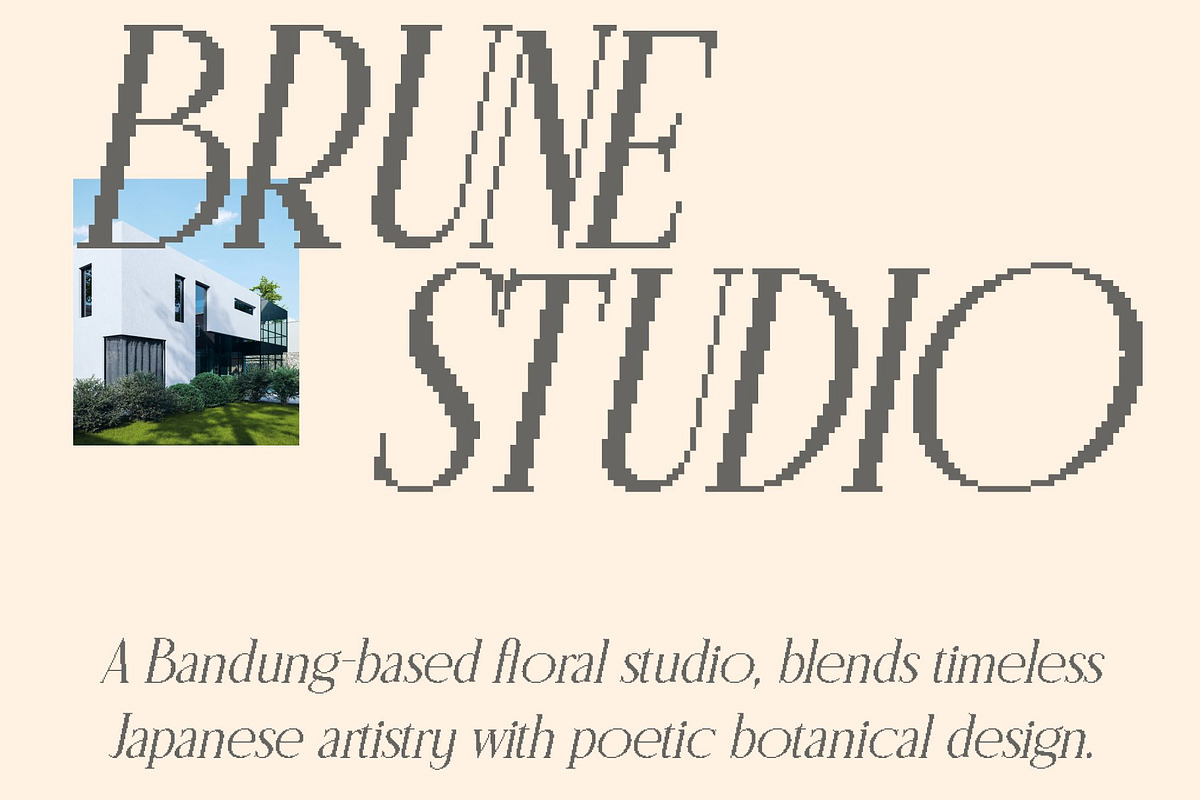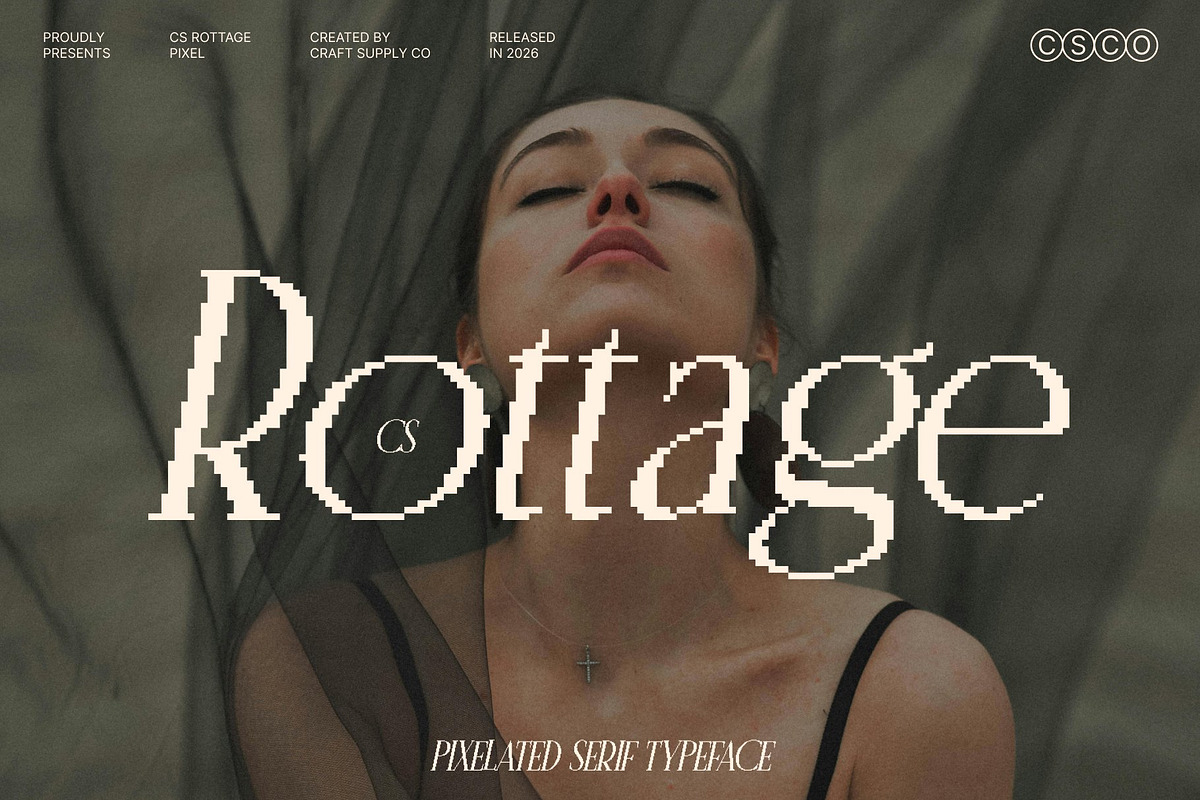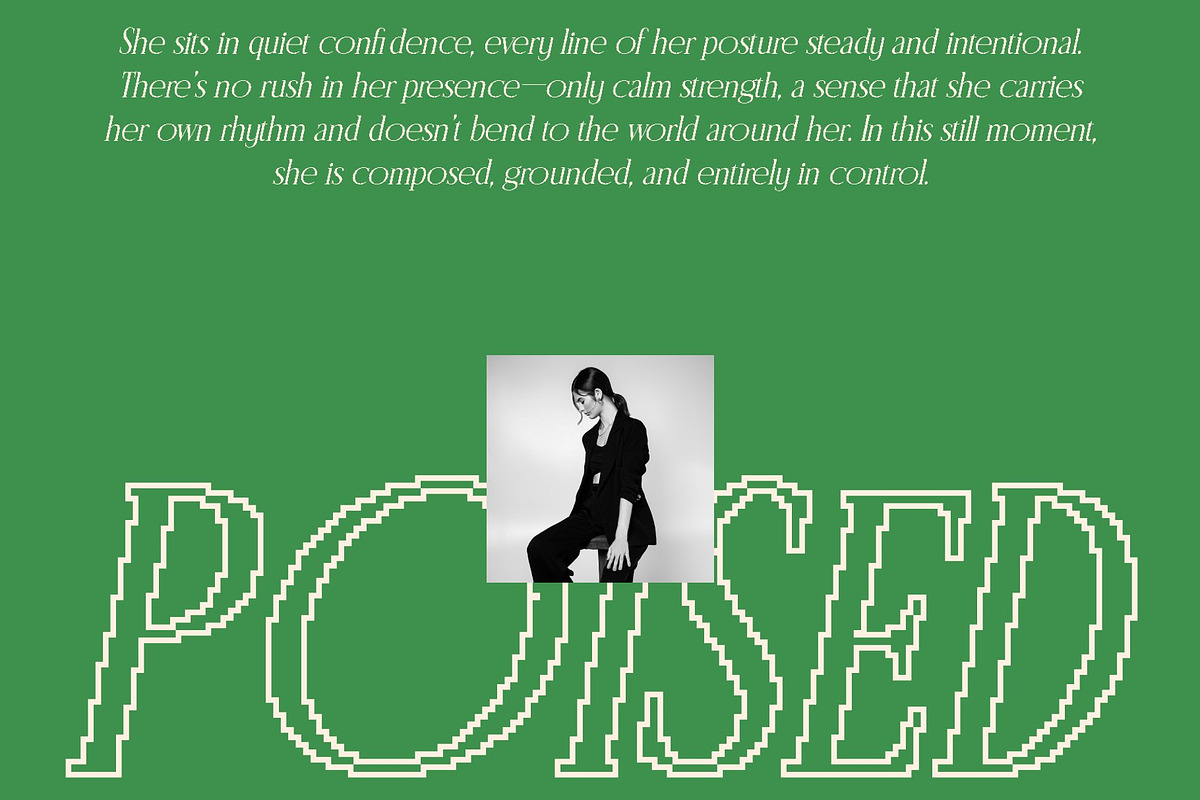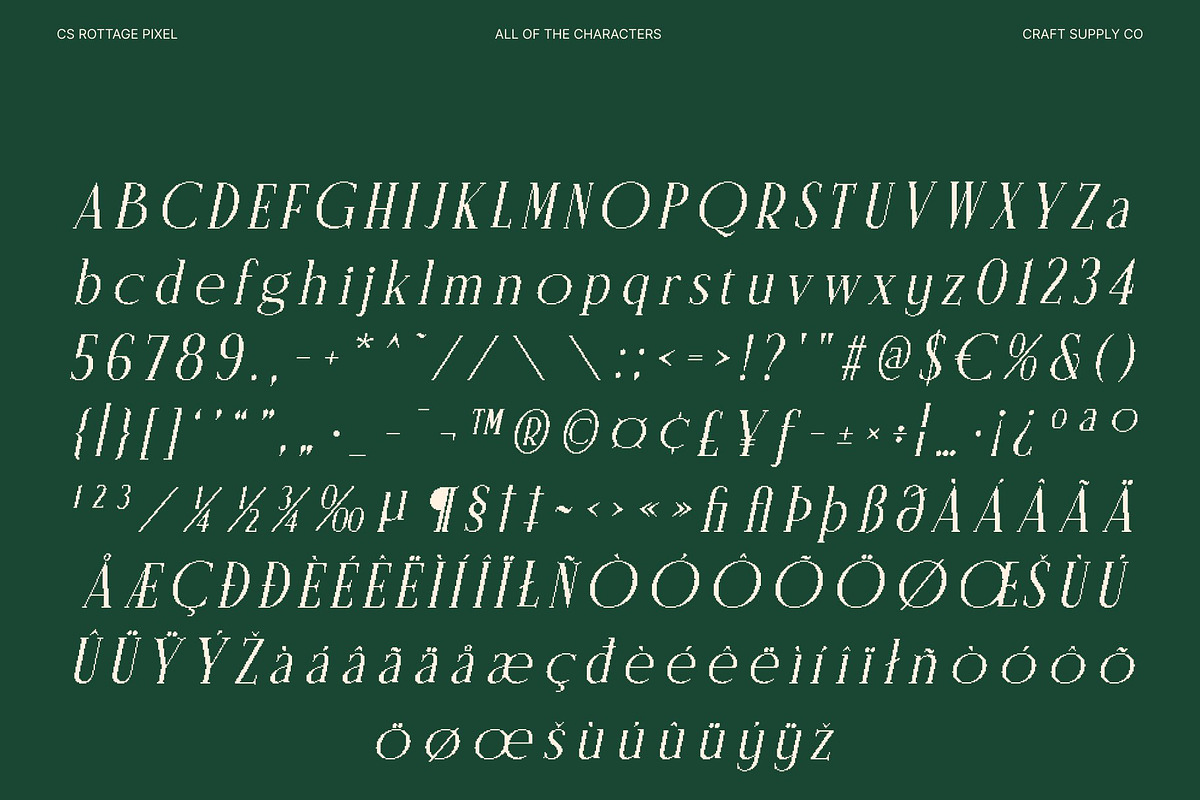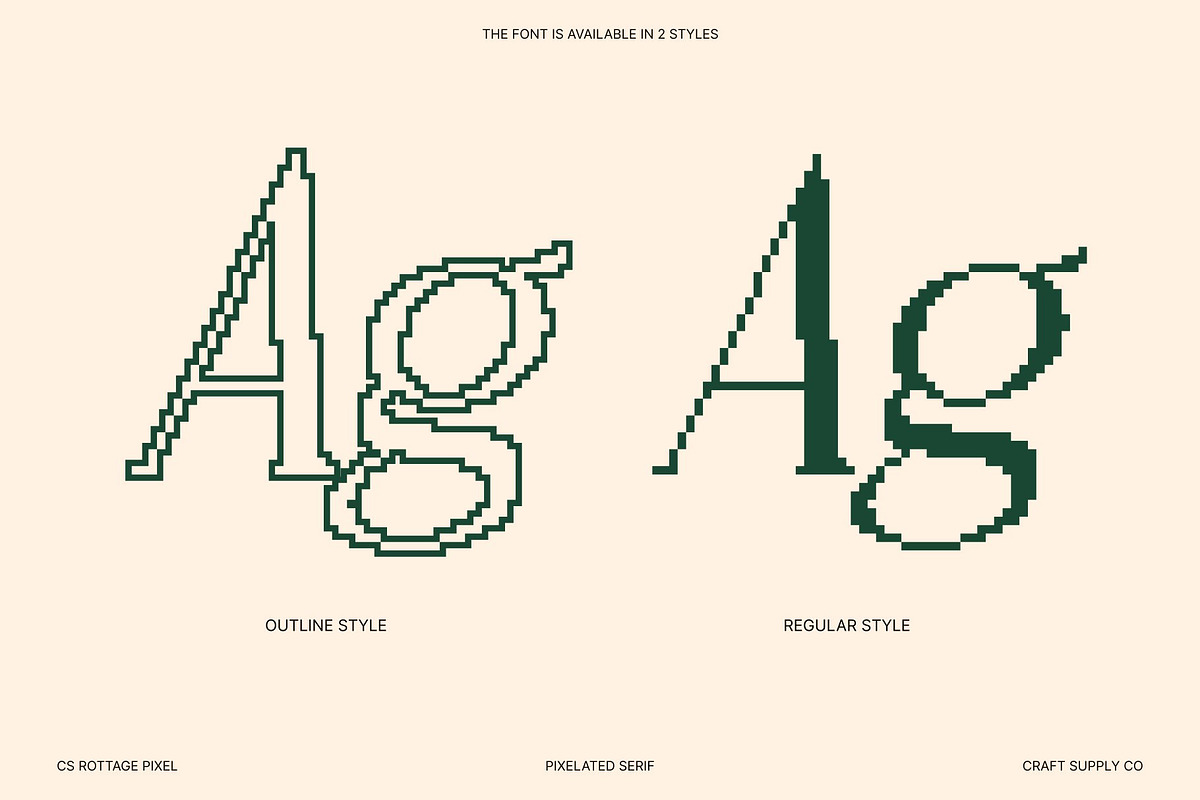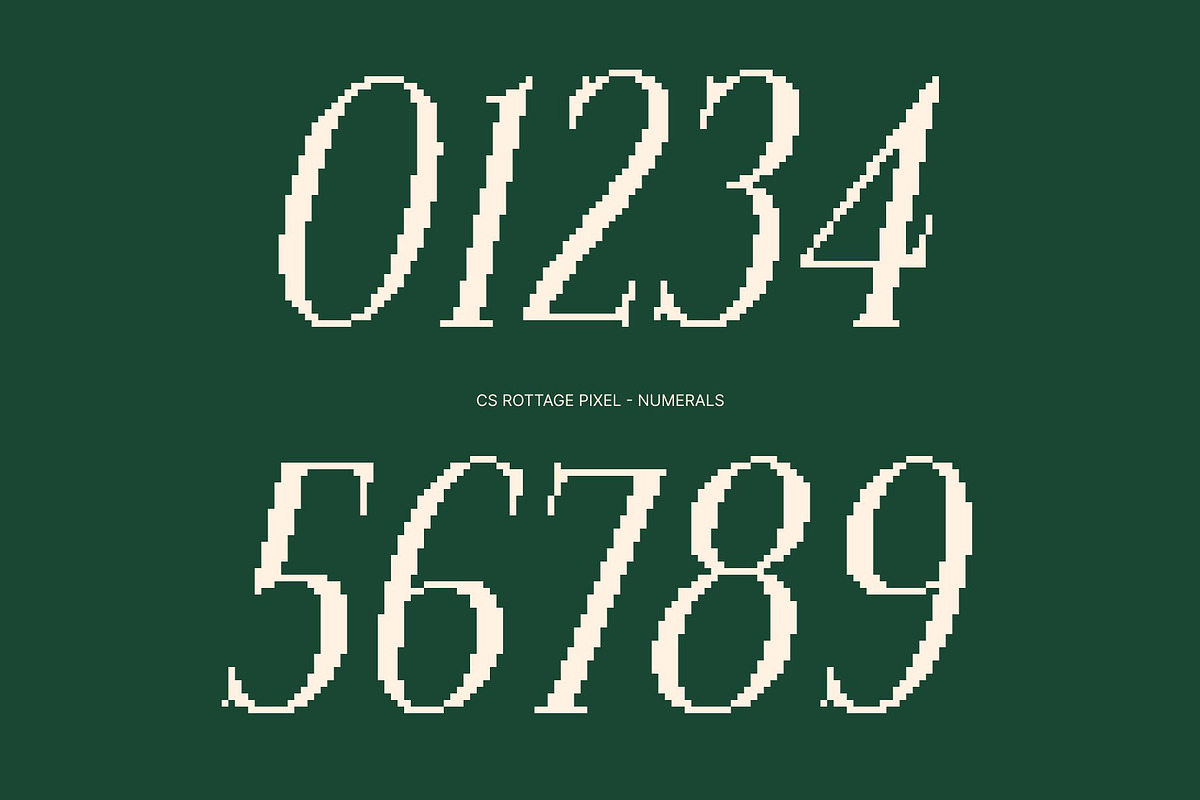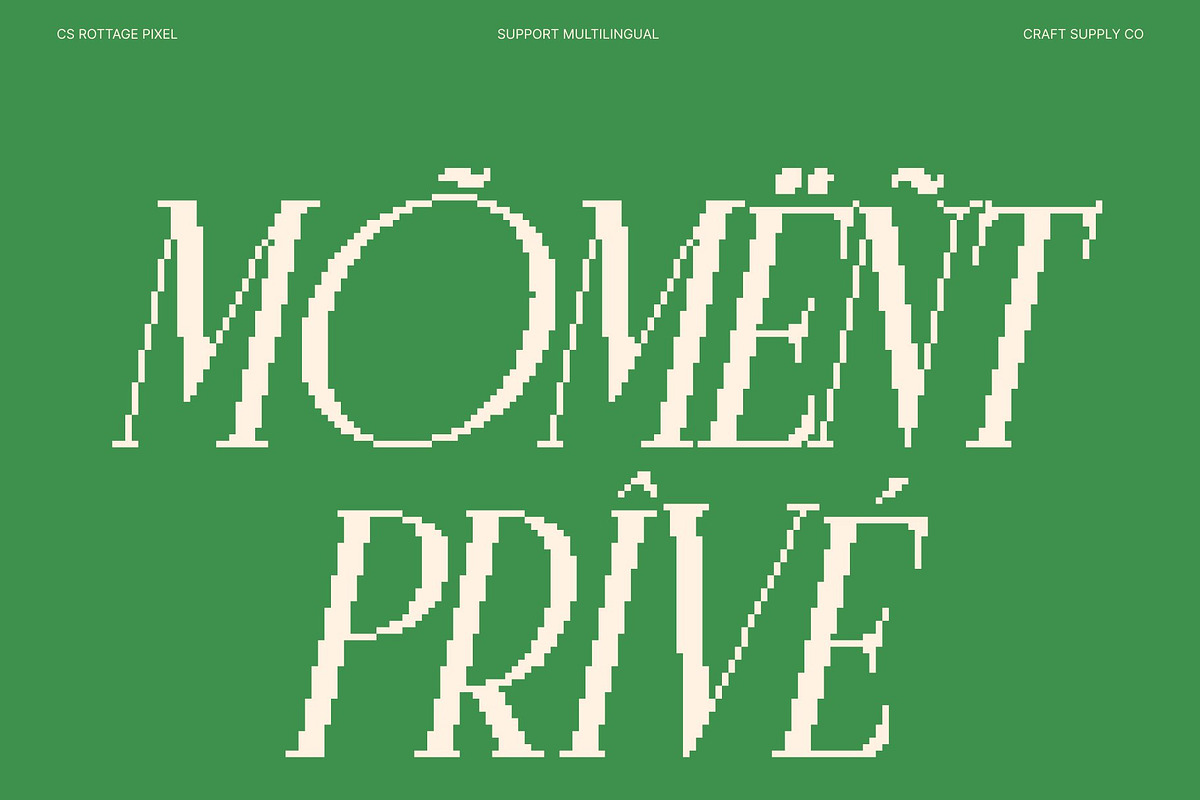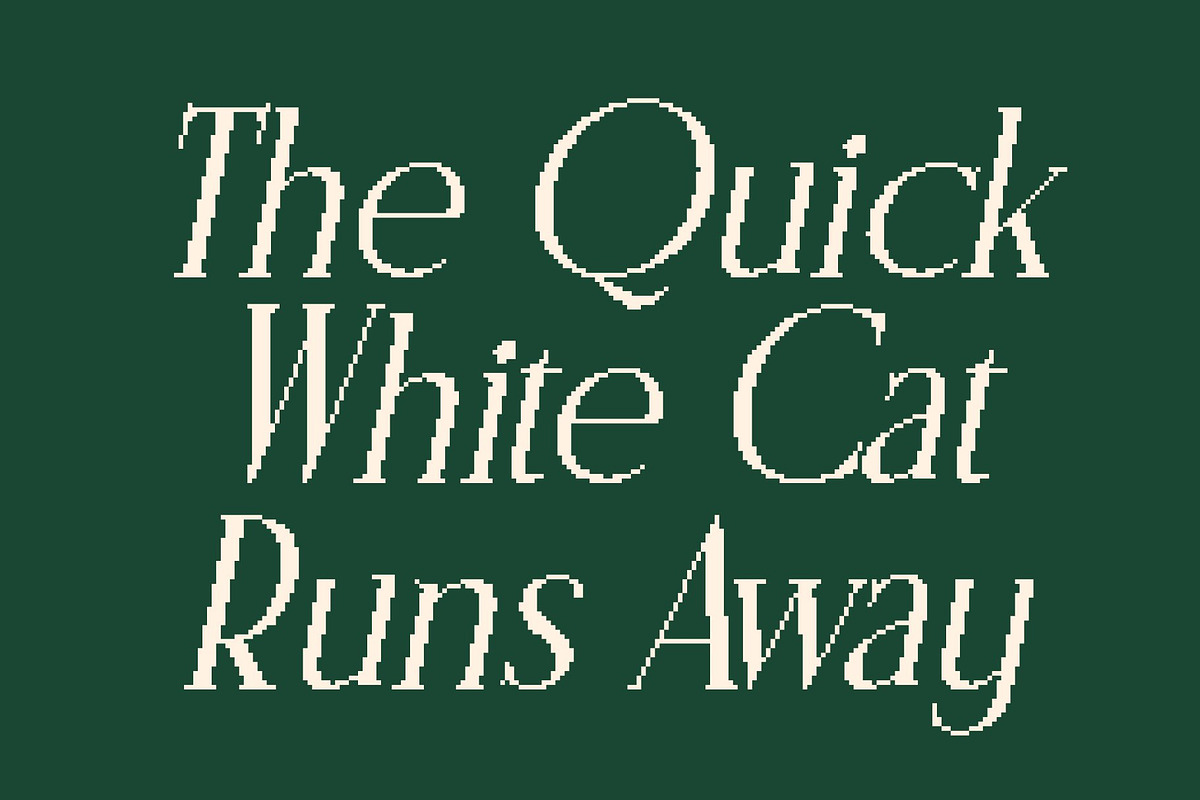
CS Rottage Pixel
CS Rottage Pixel – Classic Sophistication with Modern Pixel Simplicity
Timeless Serif Elegance Refined in Pixel Form This reimagines classic serif beauty through precise pixel construction. The font preserves its refined elegance and balanced proportions while introducing a clean, digital structure that feels sharp and contemporary. This fusion creates a sophisticated rhythm that feels timeless yet unmistakably modern.
Refined Pixel Structure with Luxurious Clarity Delicate serifs and smooth transitions are translated into carefully aligned pixel forms, giving the font a structured and intentional appearance. The pixel detailing enhances clarity and contrast, allowing the typeface to maintain its luxurious feel while gaining a crisp, screen-friendly edge. Every character feels polished, controlled, and visually confident.
Elegant Simplicity for Digital and Modern Design This font radiates understated luxury with a modern digital sensibility. Its minimalist pixel execution ensures harmony and readability, making it ideal for premium branding, editorials, digital publications, and elegant visual identities that demand sophistication without excess.
A Balance of Heritage and Digital Precision Blending traditional serif refinement with modern pixel aesthetics, this font bridges classic design values and contemporary technology. Perfect for luxury brands, creative studios, and retro-tech inspired visuals, this font delivers enduring beauty with a sharp, modern presence where tradition meets pixel-perfect elegance.